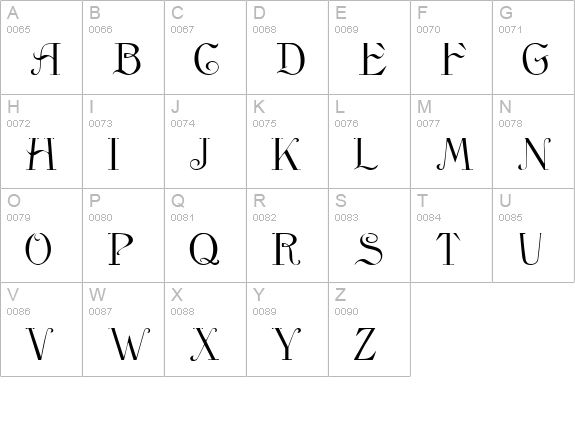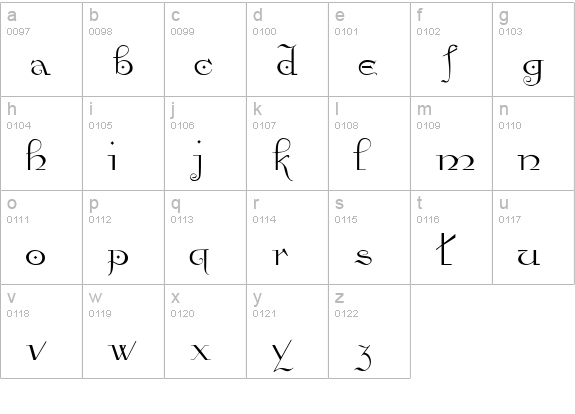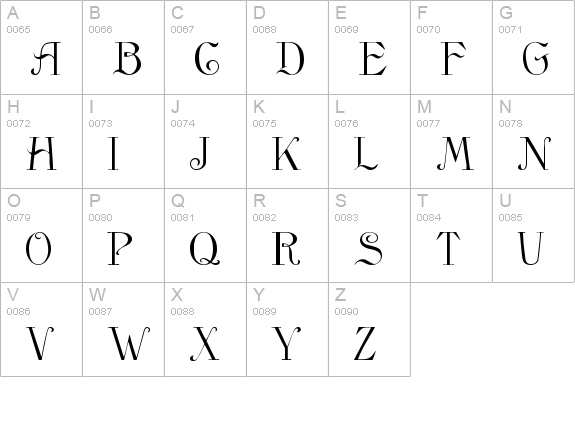
Viata Script SSi Font Details
Viata Script SSi is a stunning and elegant font that will add a touch of sophistication to any project. With its flowing and graceful letterforms, this font exudes a sense of beauty and style. The delicate curves and intricate details of Viata Script SSi make it perfect for wedding invitations, feminine branding, and other romantic designs. But what sets Viata Script SSi apart is that it is not only a beautiful font, but it is also free! Yes, you read that right. This exquisite font is freely available to download at FontsMarket.com. Now you can add a touch of elegance to your designs without breaking the bank. Whether you're a professional designer or a hobbyist, Viata Script SSi is a must-have in your font collection. Its versatility allows it to be used in a wide range of projects, from logos and packaging to social media graphics and website designs. The possibilities are endless. So why wait? Head over to FontsMarket.com and download Viata Script SSi today. Experience the beauty and elegance of this stunning font, all for free. Don't miss out on this incredible opportunity to enhance your designs with Viata Script SSi.